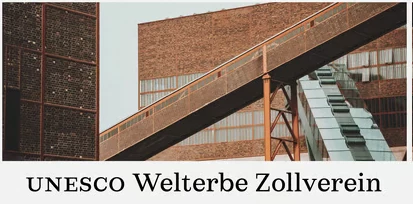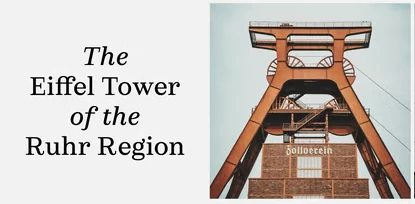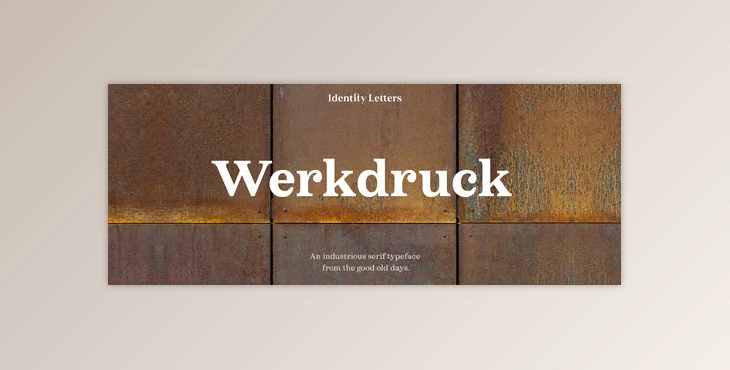
The Werkdruck font family is a classical archetype of serif fonts that have been beautifully adapted for contemporary digital use. Rational and transitional type design contributed to the creation of Werkdruk and includes a broader structure that augments its legibility across many contexts. Its curves shine digitally in bigger sizes, and its generous proportions guarantee clarity even when used in small text on high-resolution screens. Unlike the narrower serif fonts from the early 20th century, Werkdruck has wider forms that align with contemporary functional needs and a modern aesthetic.
Servicing complex typesetting assignments seamlessly makes Werkdruck an outstanding candidate due to its nine versatile weights, true italics, and an astonishing collection of 911 glyphs. Designers can create visually attractive but stand-alone compositions because they synergize perfectly with our famed sans-serif counterpart, Werksatz. In print or digitally published media, Werkduck remains a dependable option for serif typefaces as it elegantly blends traditional principles with modern creativity trends.